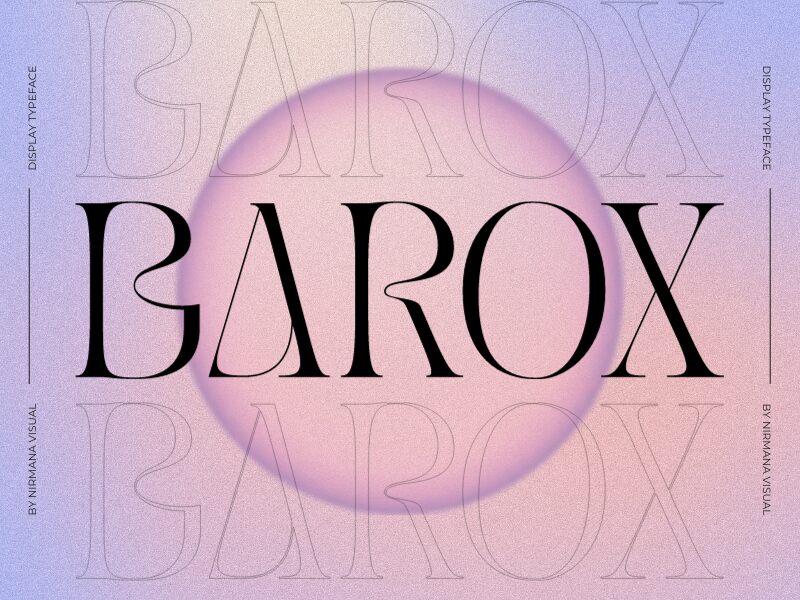
Barox - Demo Version Regular
Barox font by Nirmana Visual is a display font with a retro appeal. It showcases classic elegance with a modern twist, featuring refined curves and an artistic flair that adds sophistication to any project.
This free display font is ideal for logotypes, labels, advertising materials, packaging designs, magazine covers, website headers, social media graphics, movie titles, book covers, posters, and branding projects.